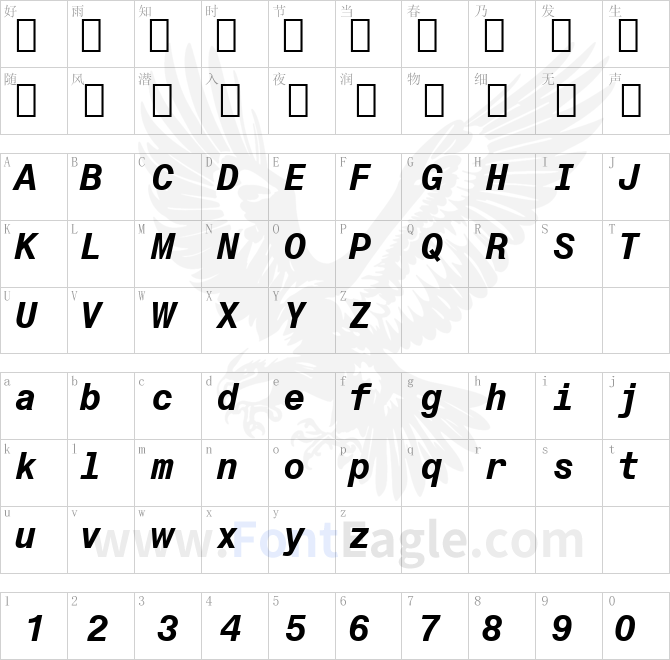
- Font name:Monospac821 BT
- Font Subfamily ID:Monospace 821 Bold Italic
- Font Full Name:Monospac821 BT Bold Italic
- Postscript:Monospace821BT-BoldItalic